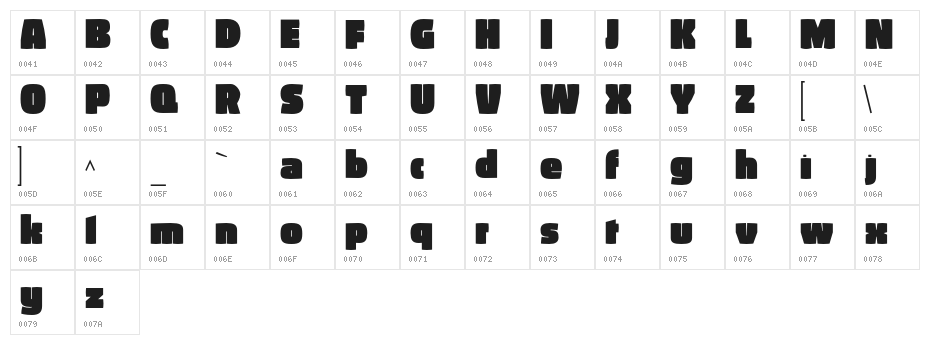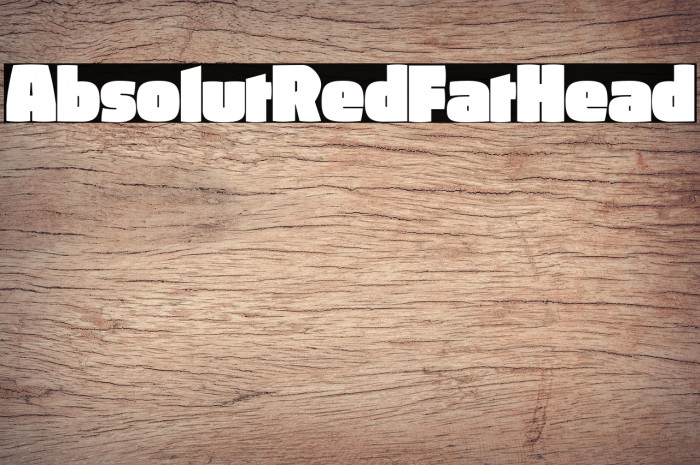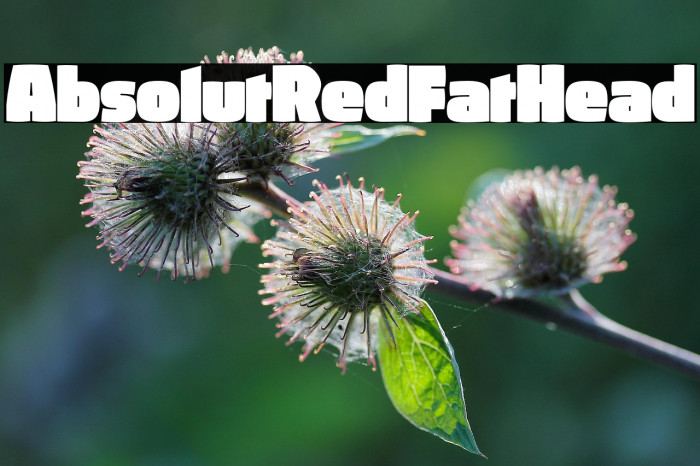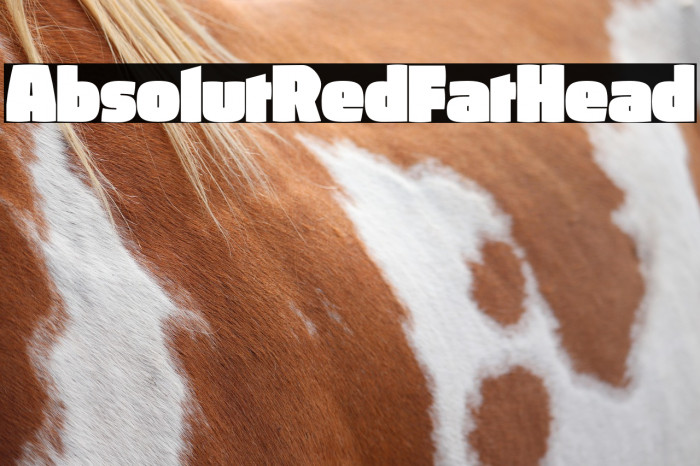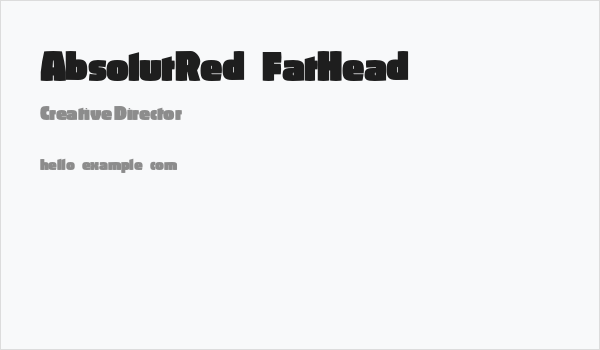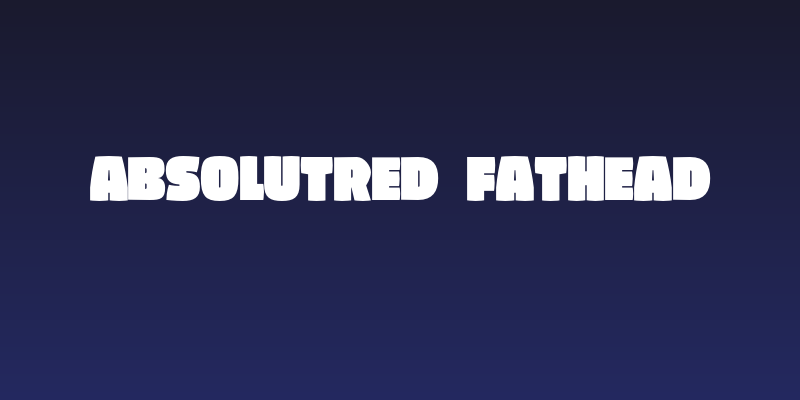
AbsolutRed-FatHead Font
AbsolutRed-FatHead Description
This bold and impactful font features thick, rounded letterforms that convey a sense of strength and modernity. The characters are uniformly wide, giving the text a solid and cohesive appearance. The uppercase and lowercase letters maintain a consistent style, with minimal variation in stroke width, contributing to a harmonious look. The font's design is straightforward yet powerful, making it suitable for attention-grabbing headlines and titles. Its boldness ensures readability from a distance, while the rounded edges add a touch of friendliness to the overall aesthetic.
| Proposed Projects | This font is perfect for branding projects, poster designs, and any application where a strong visual impact is needed. It can be used effectively in advertising, packaging, and logo design to convey a modern and robust image. |